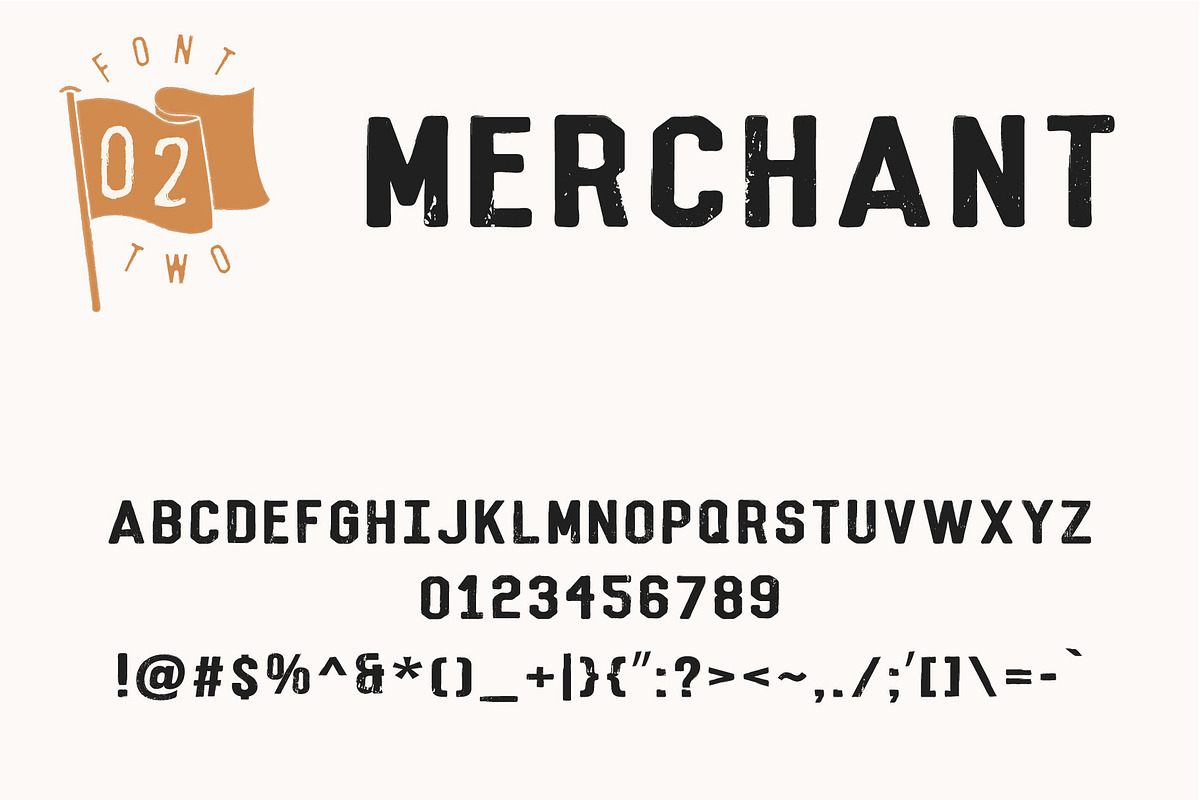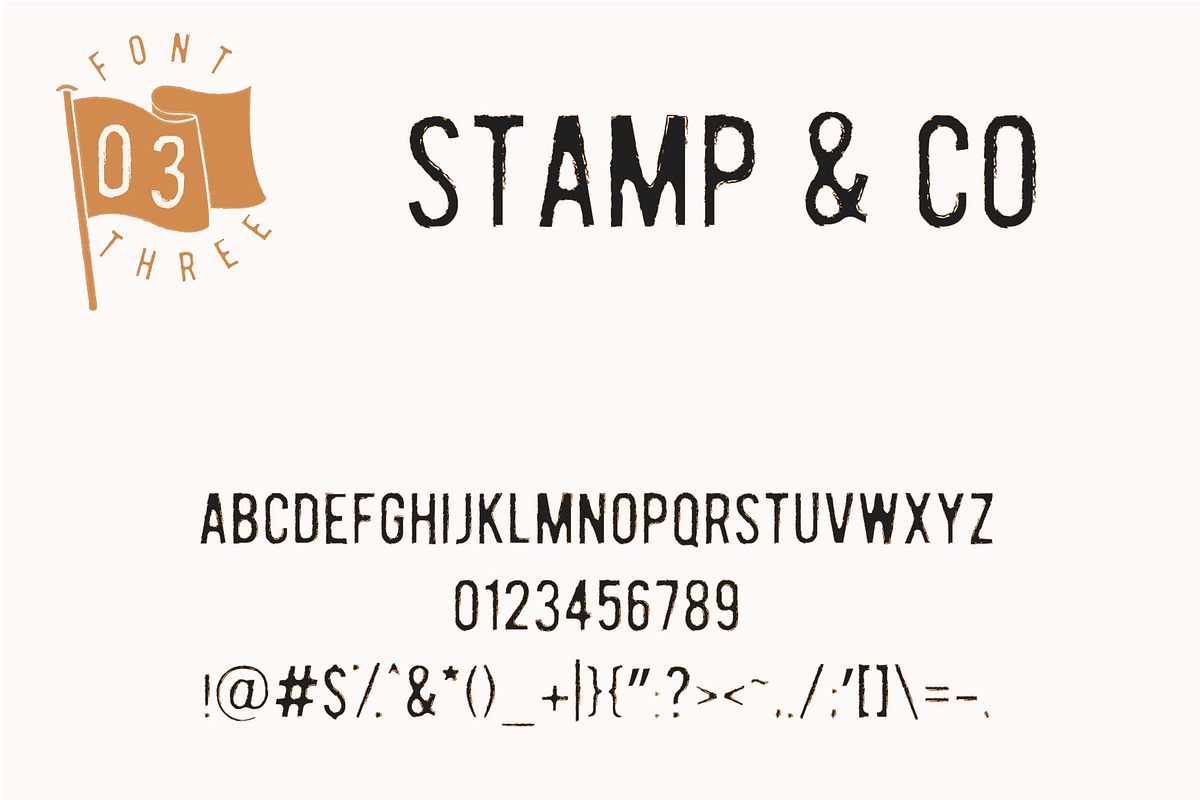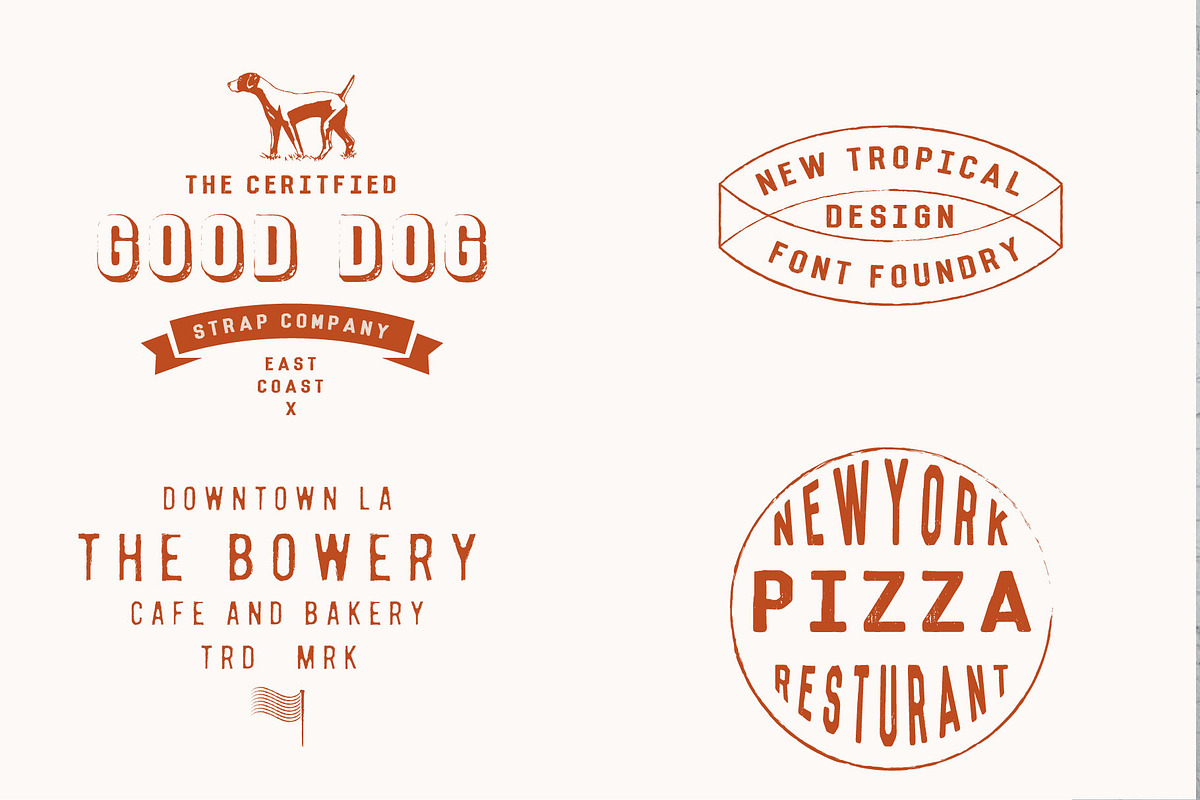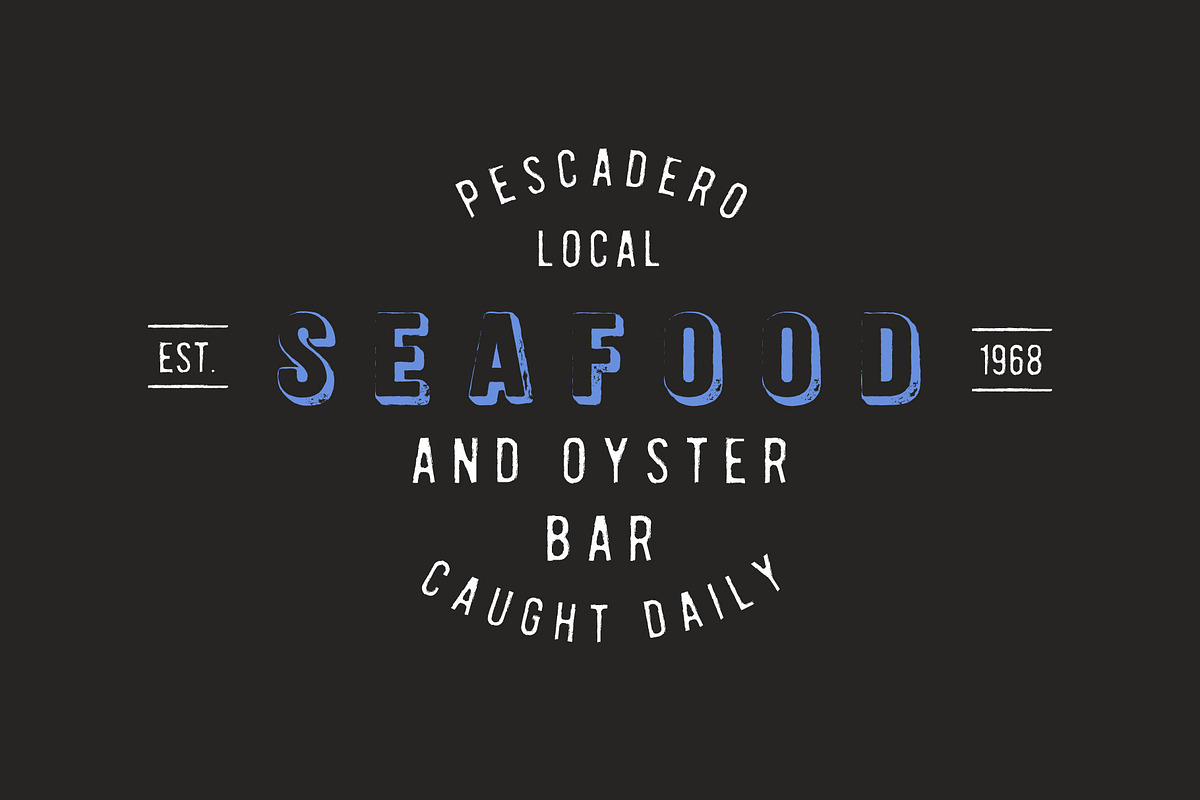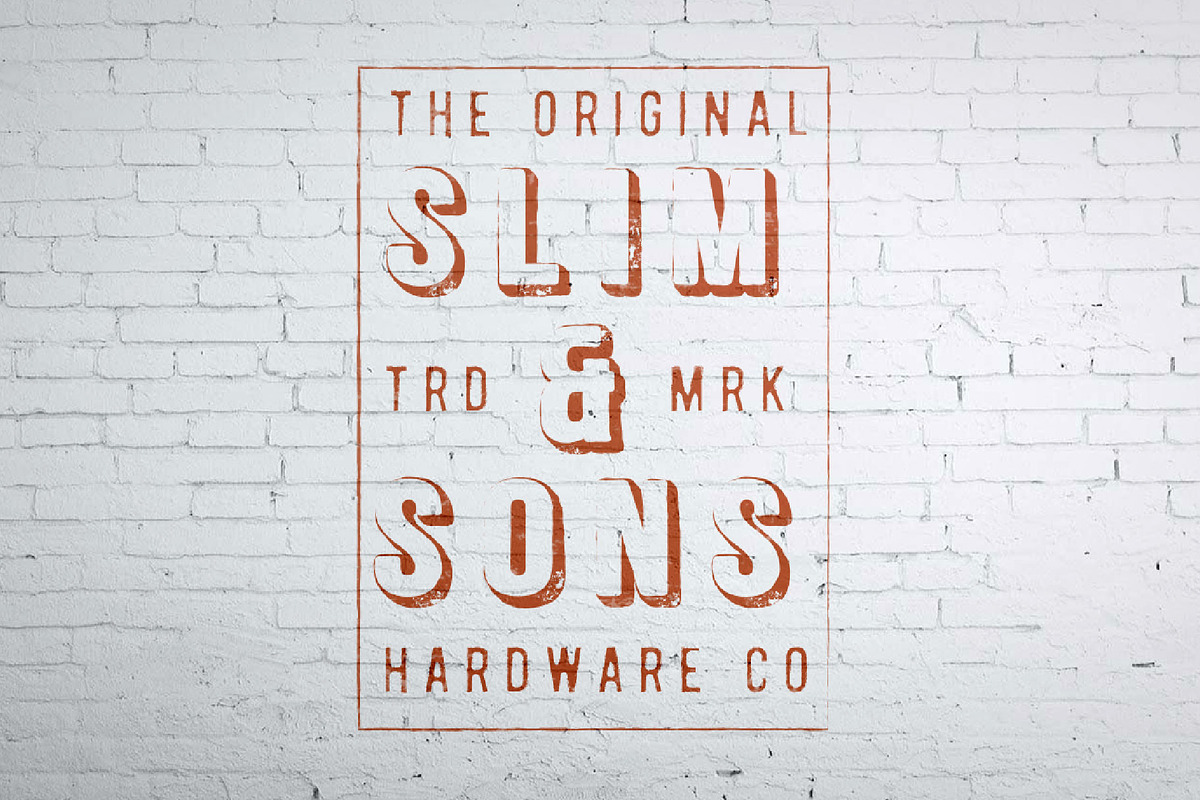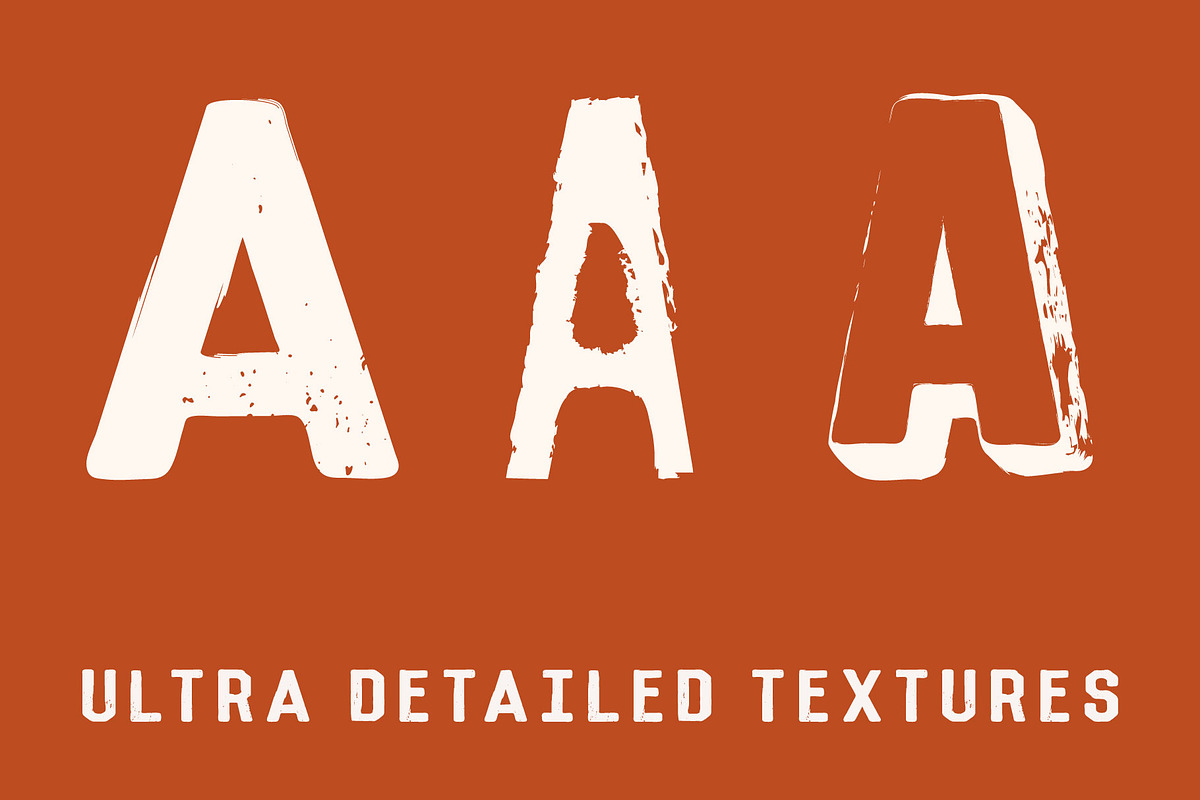
Sign Writer - textured font bundle
A vintage font collection with serious texture. Do you use textures in you design work and want your fonts to match? Then this is for you! 3 different fonts with that 50's sign-writer style. Great for those retro logos and posters!
- CONTAINS 3 FONTS: SIGNWRITER STAMP AND CO MERCHANT All caps - numbers - punctuation.